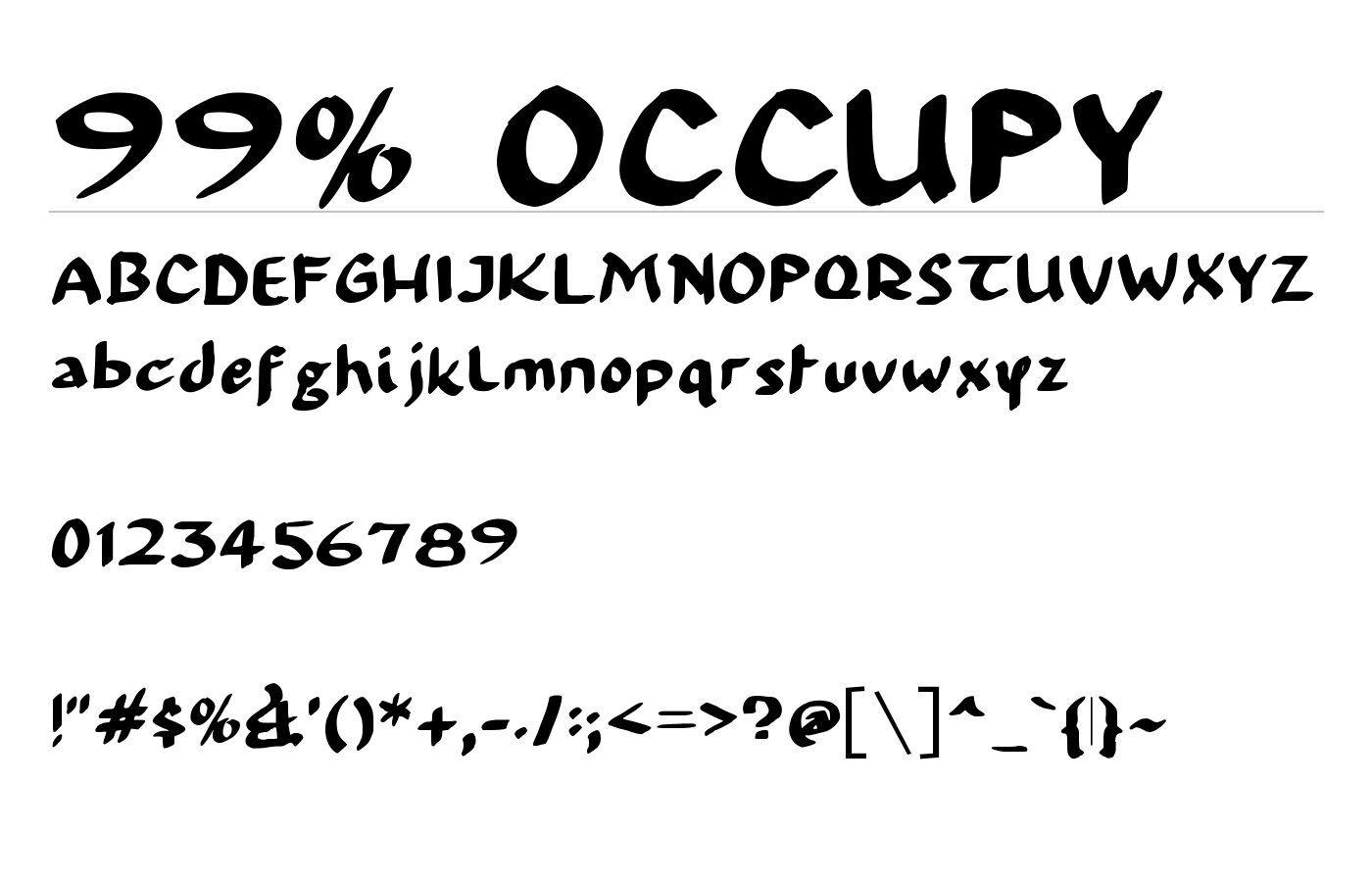
99% OCCUPY is a bold, hand-drawn sans serif font with a strong, expressive character and a casual, slightly rough texture that feels dynamic and rebellious. Its irregular shapes, moderately high contrast, and energetic strokes give it a distinct, informal style perfect for attention-grabbing headlines and creative projects that need a spirited, urban vibe. This font works well in posters, social activism designs, and branding that aims to communicate individuality and boldness.
99% OCCUPY Font
About 99% OCCUPY Font
| Font family | 99% OCCUPY Font |
| Designer | SWMCA Catalogs LLC. |